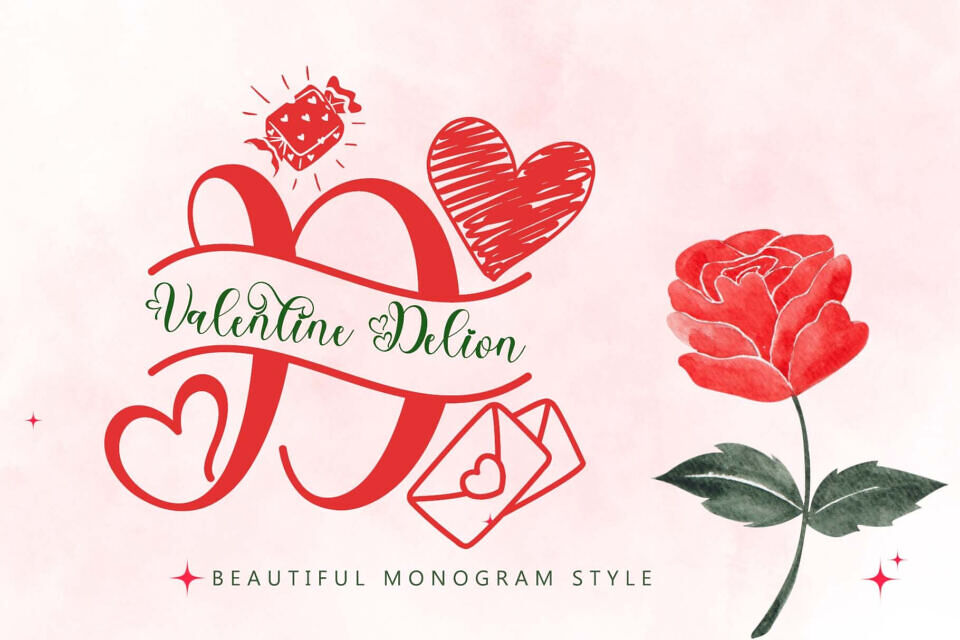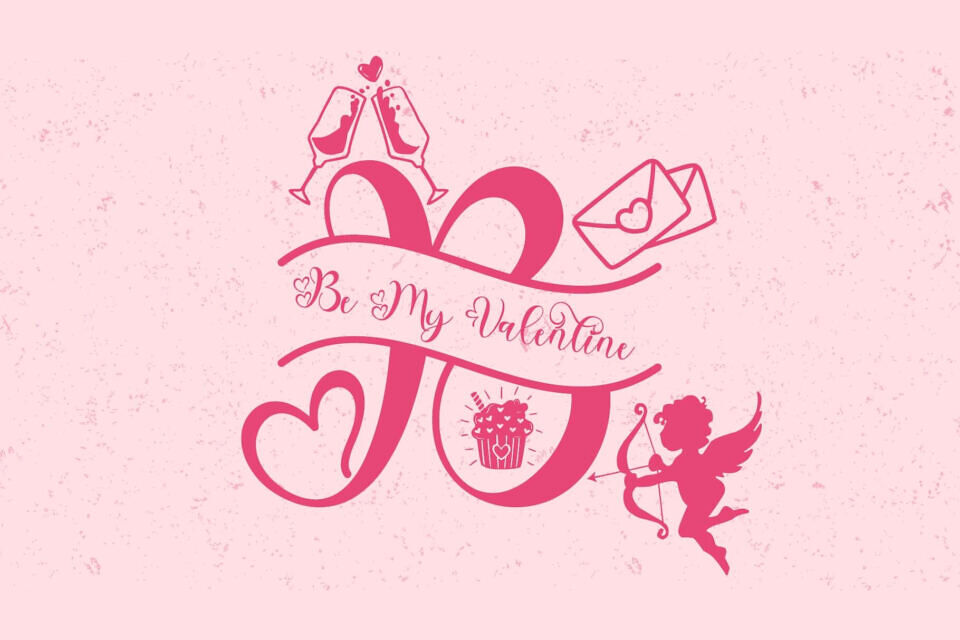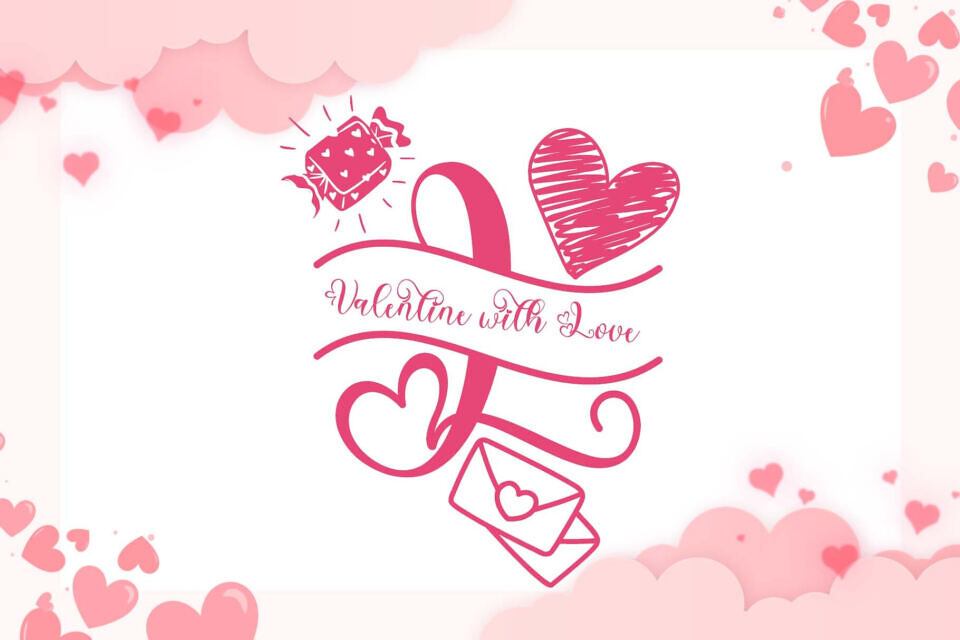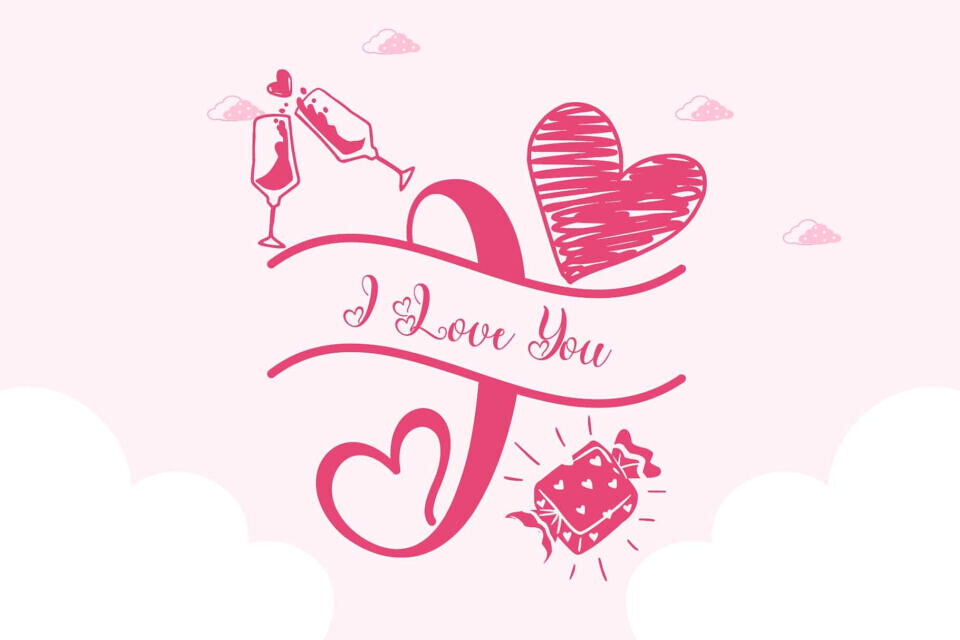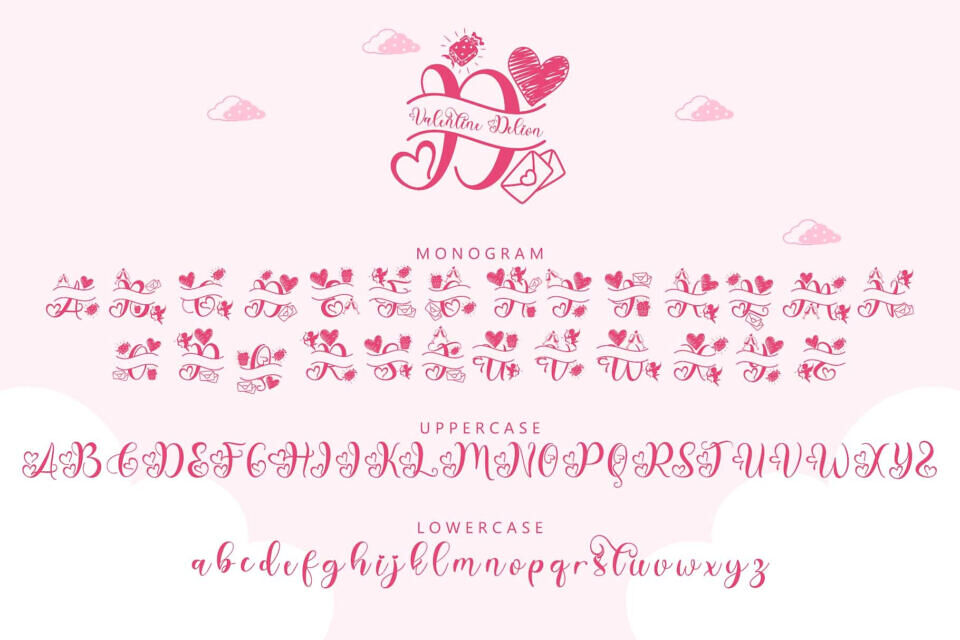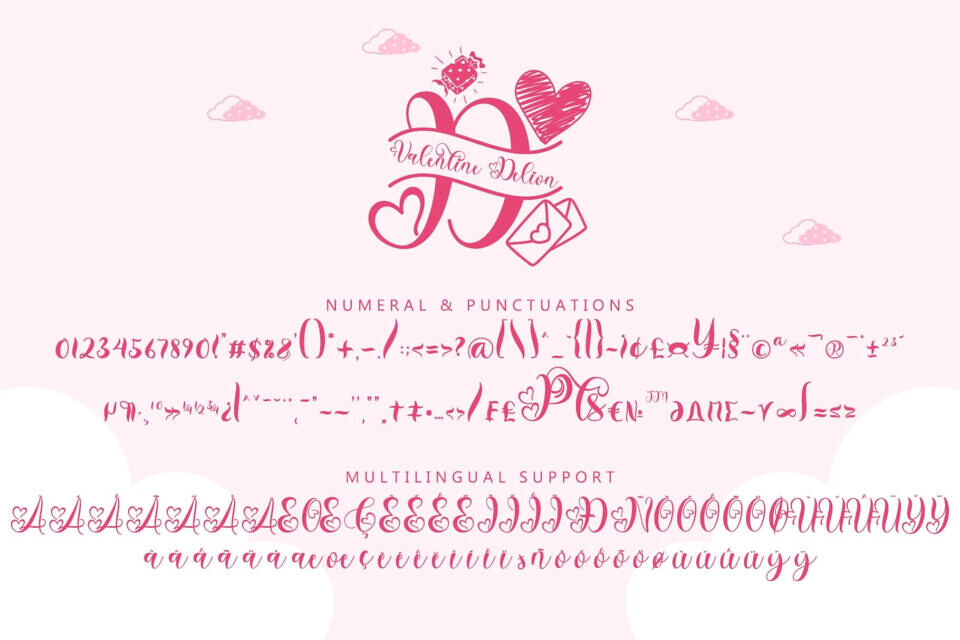
Celebrate love in the most elegant way with Valentine Delion, a romantic monogram-style font that combines graceful calligraphy with charming Valentine’s-themed details.
Perfect for wedding designs, Valentine’s Day cards, gift tags, or romantic branding, this font exudes love and sophistication. Add a heartfelt touch to any project with its intricate swirls, hearts, and flourishes.